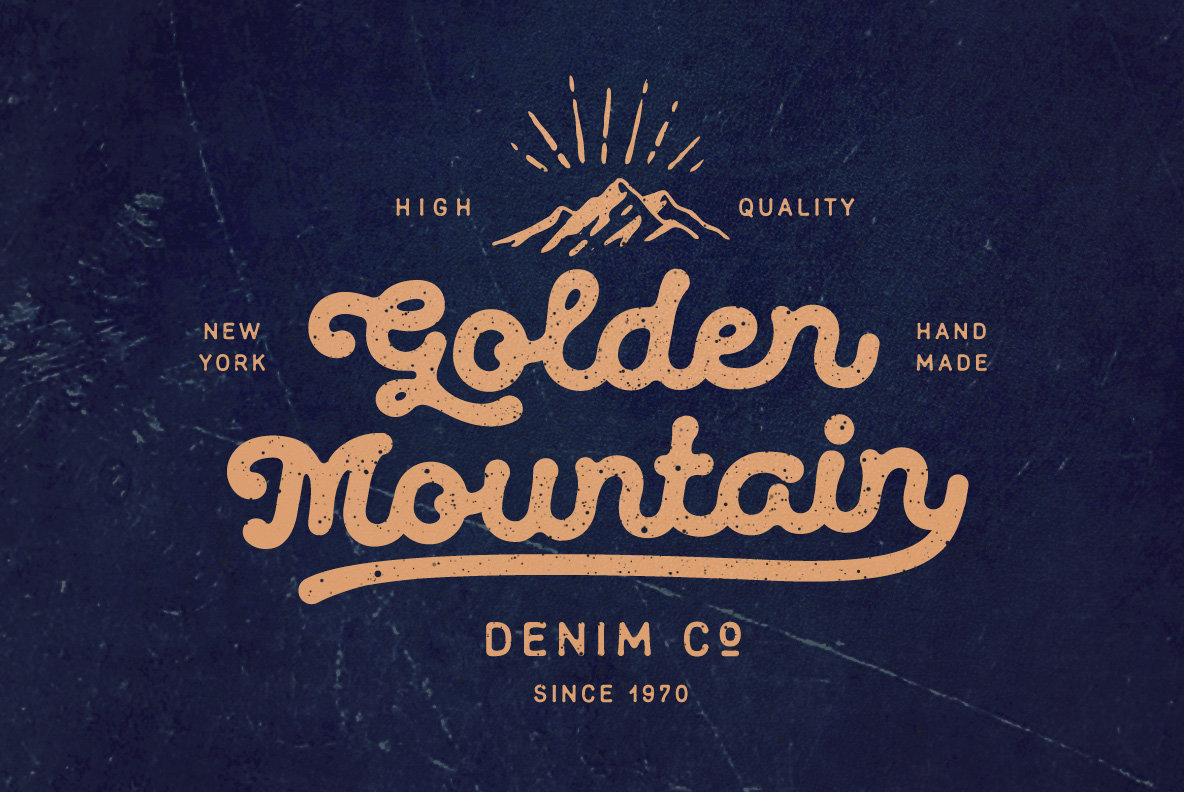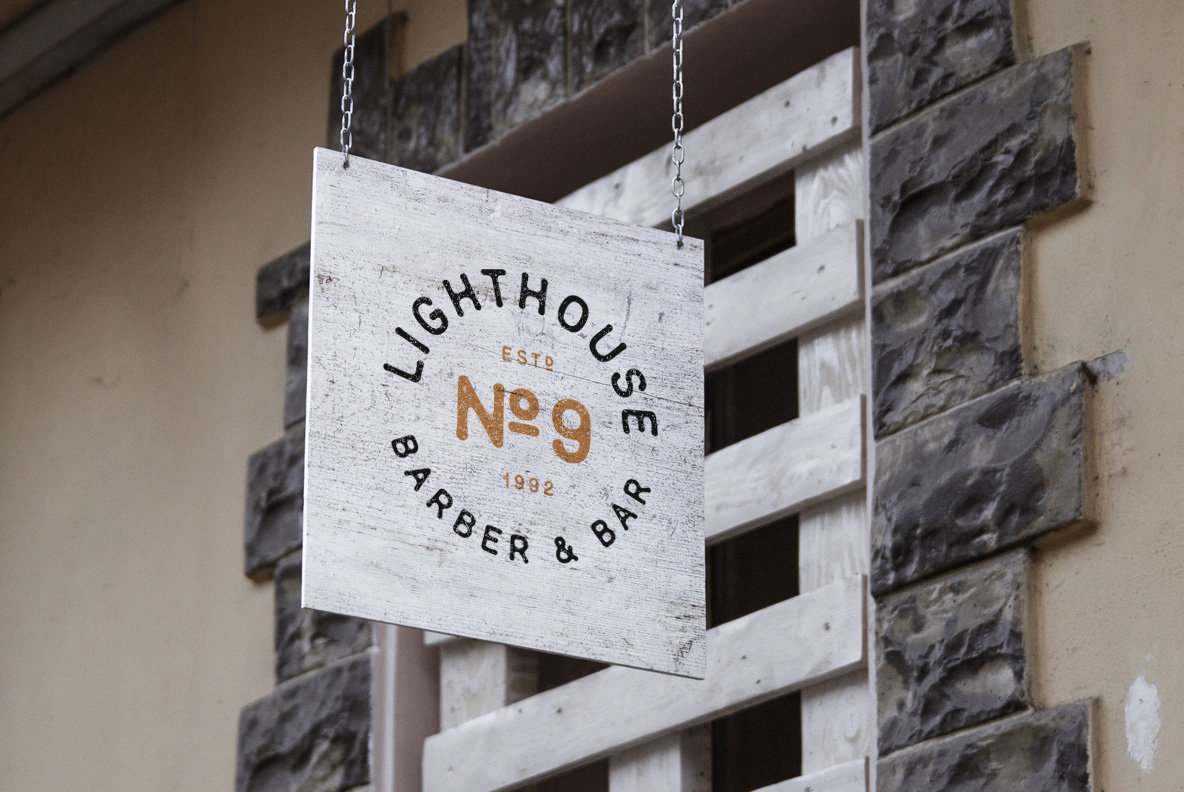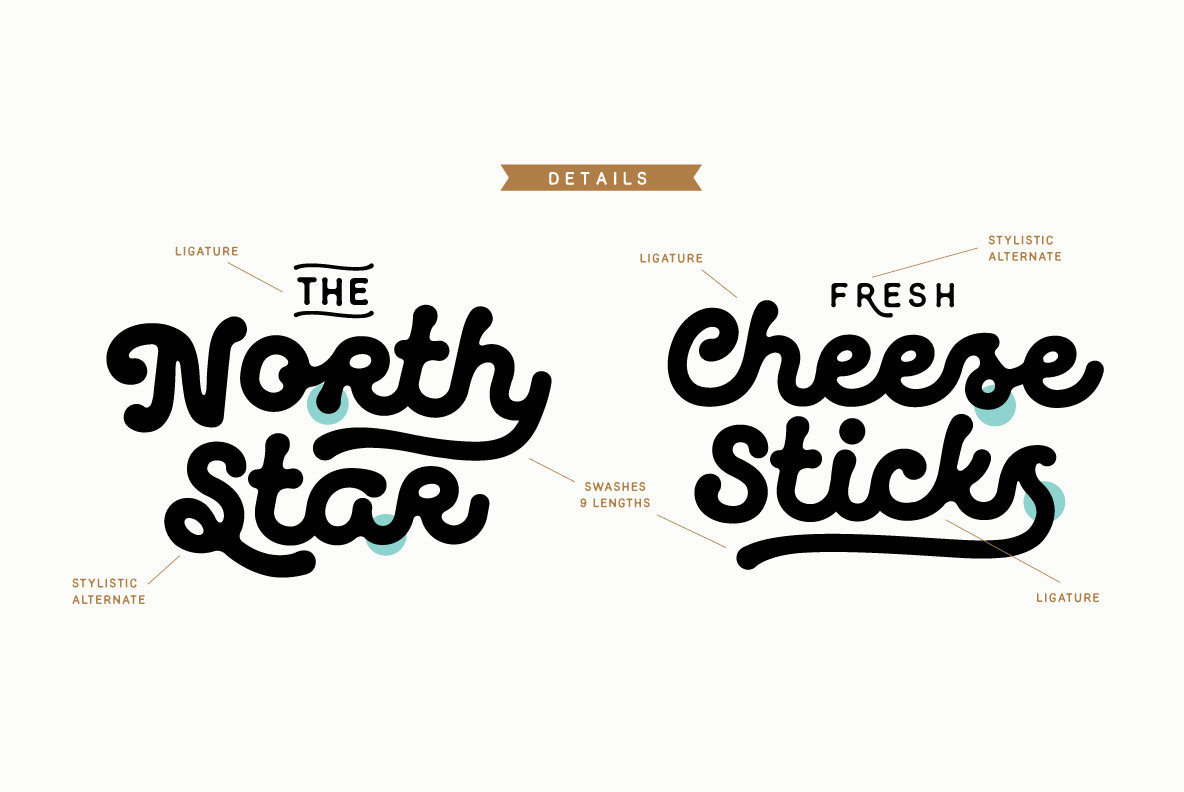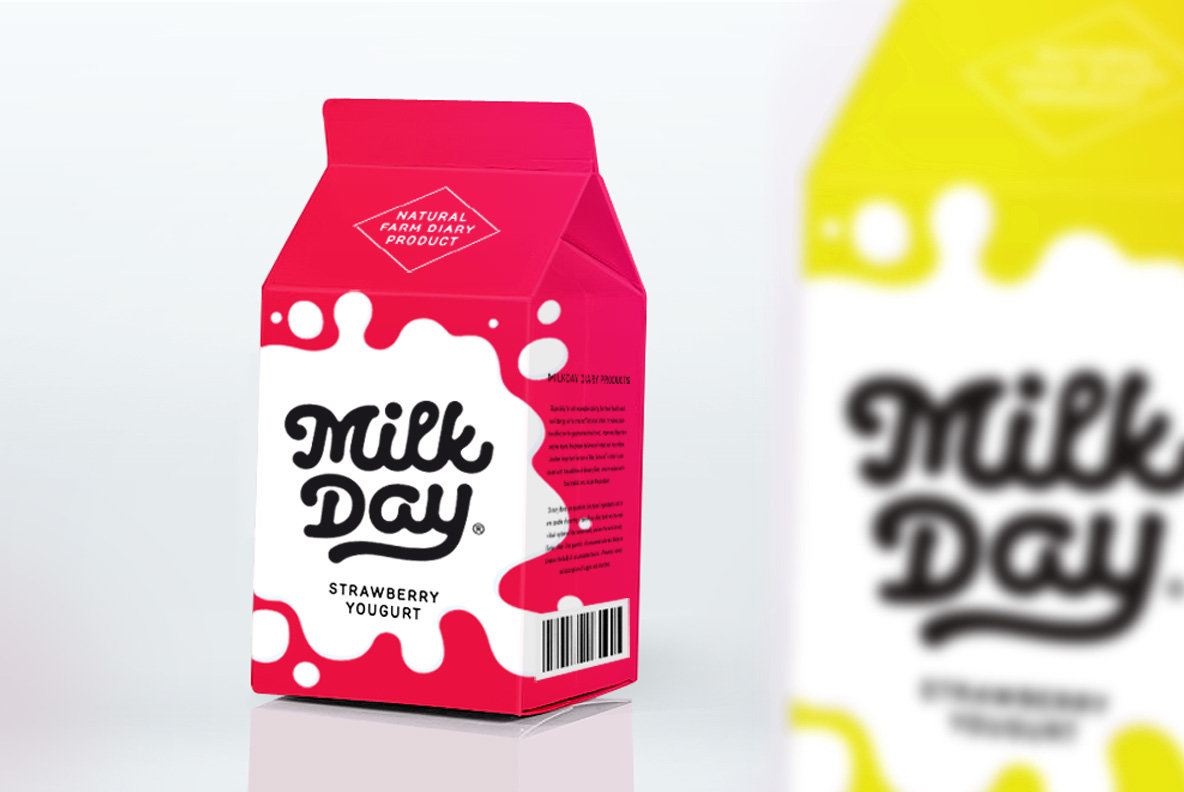
Makers Duo Font
Makers Sans Serif
Makers Script
Makers Duo is a font family that contains both a script and sans-serif design styles. Makers was designed to capture the spirit of handcrafted products, and works well for numerous design mediums.